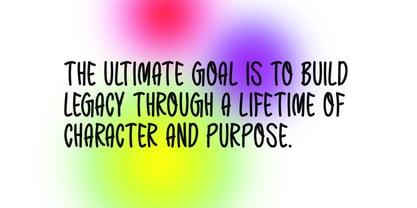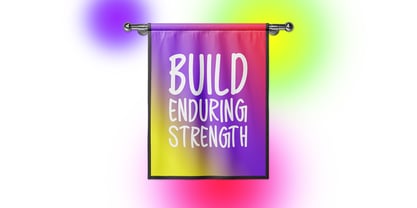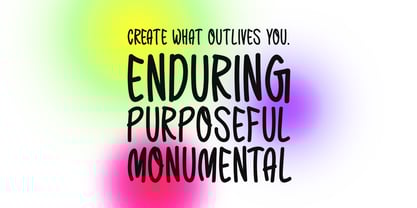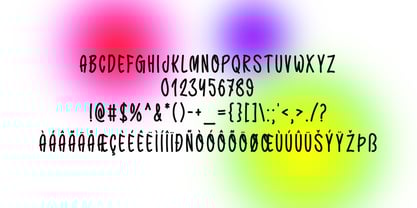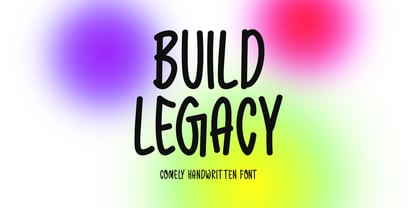
Build Legacy
by Seemly Fonts
The Build Legacy Font Family was designed by Md. Sohail Bhuiyan and published by Seemly Fonts. Build Legacy contains 1 styles. More about this family
Build Legacy is a comely handwritten font that combines timeless charm with modern versatility. Its graceful flow makes it the perfect choice for a wide range of creative applications, including sophisticated stationery, memorable logos, eye-catching t-shirts, and impactful poster design. It effortlessly enhances website headers, photo frames, music covers, and more, adding a touch of personalized artistry to any project.
Designers: Md. Sohail Bhuiyan
Foundry: Seemly Fonts